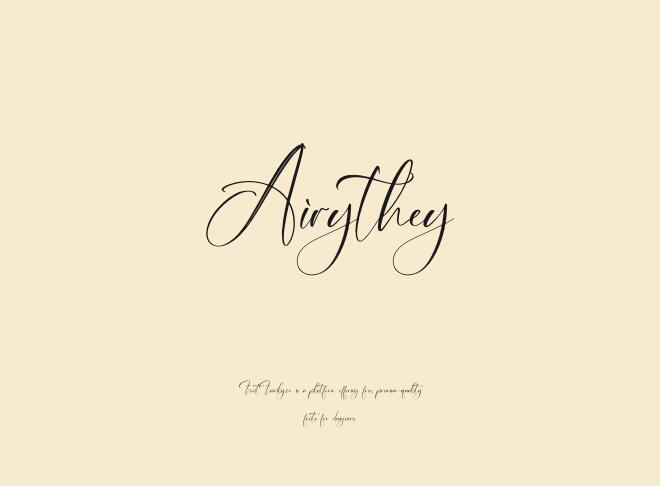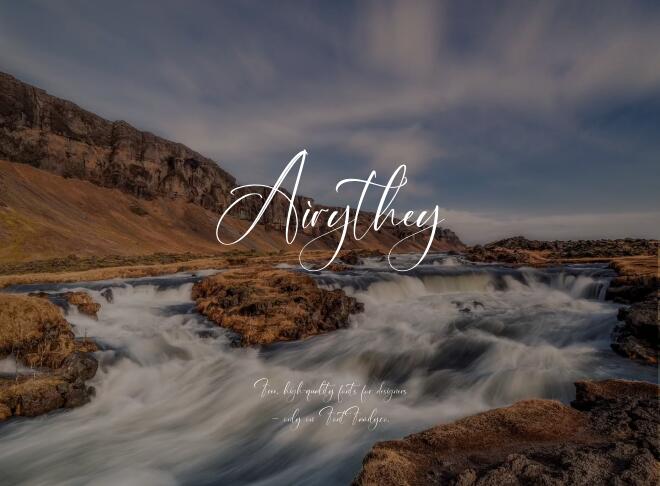
Airythey Font
Airythey Font, a creation of Creatype Studio, is a modern script font with a touch of elegance. This handwritten-style font is perfect for creating unique and stylish designs. Its flowing and clean lines make it ideal for logos, wedding invitations, fashion branding, or any design that requires a personal touch. Airythey Font stands out with its delicate yet bold strokes, reminiscent of classic calligraphy, yet with a modern twist. It pairs well with both serif and sans serif fonts, adding a unique flair to any design. With its versatile and attractive design, Airythey Font is a favorite choice for designers looking to add a touch of elegance and modernity to their work.